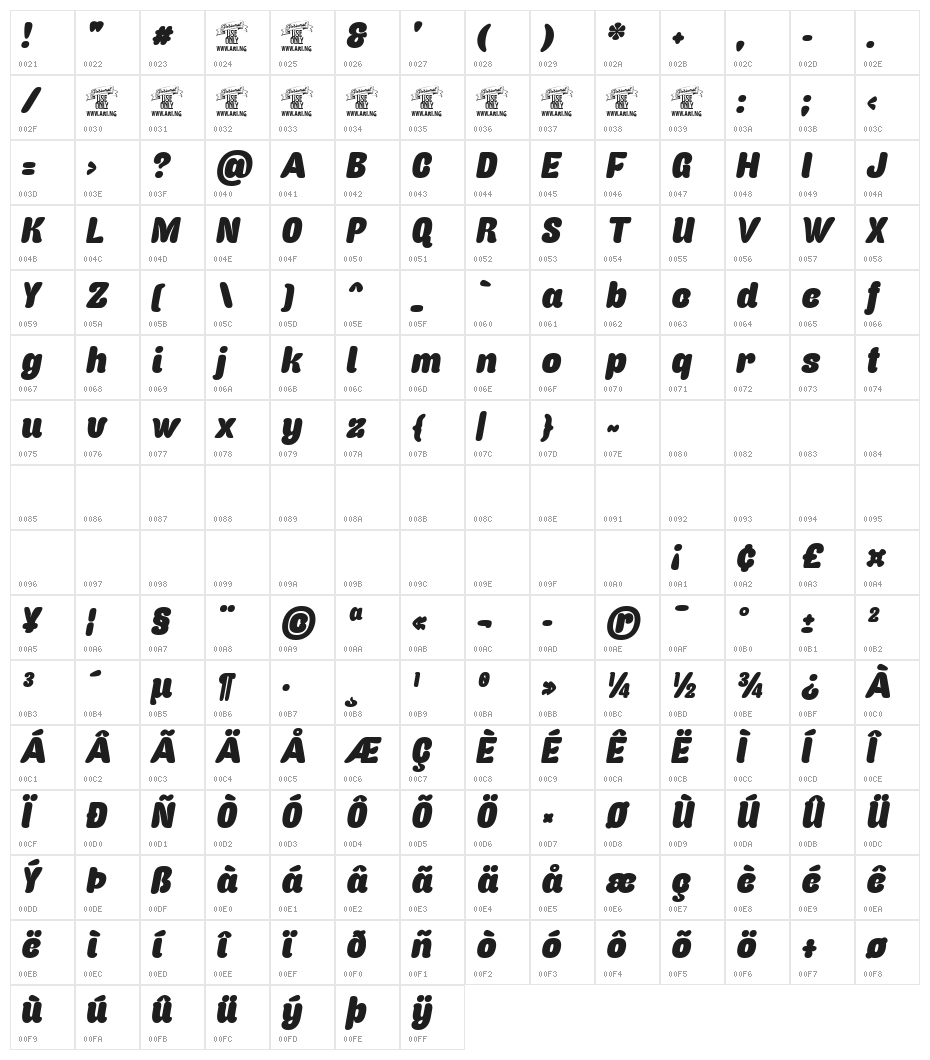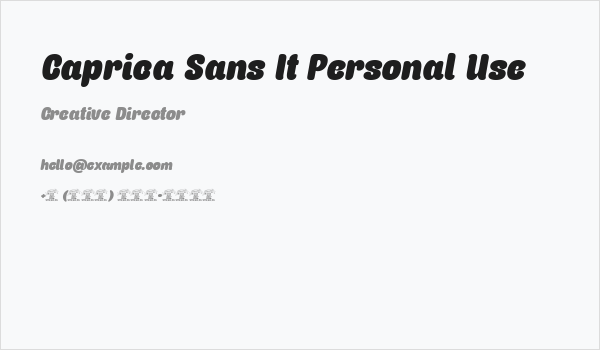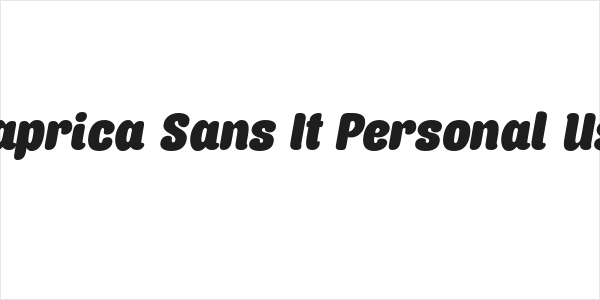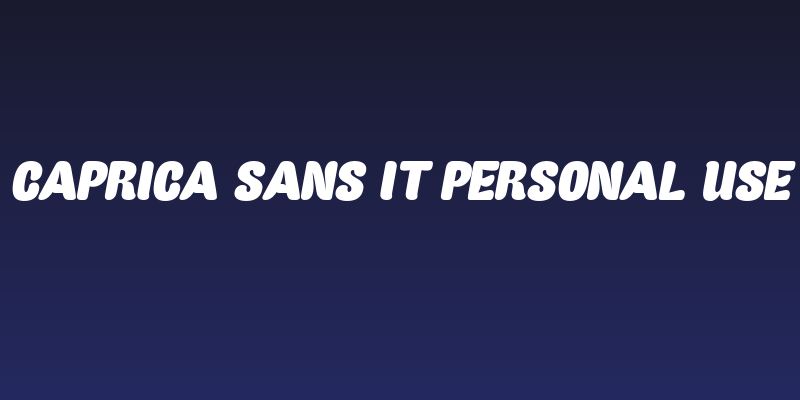
Caprica Sans It Personal Use Font
Caprica Sans It Personal Use Description
This font features a bold and playful style with rounded edges and a smooth, flowing appearance. The letters are slightly italicized, giving them a dynamic and energetic feel. The uppercase and lowercase characters maintain a consistent thickness, contributing to a cohesive look. The numbers and special characters are designed to match the overall aesthetic, ensuring uniformity across all text. This font's unique style makes it suitable for creative and informal projects, where a touch of personality is desired.
| Proposed Projects | Ideal for branding, posters, children's books, and playful graphic designs. |